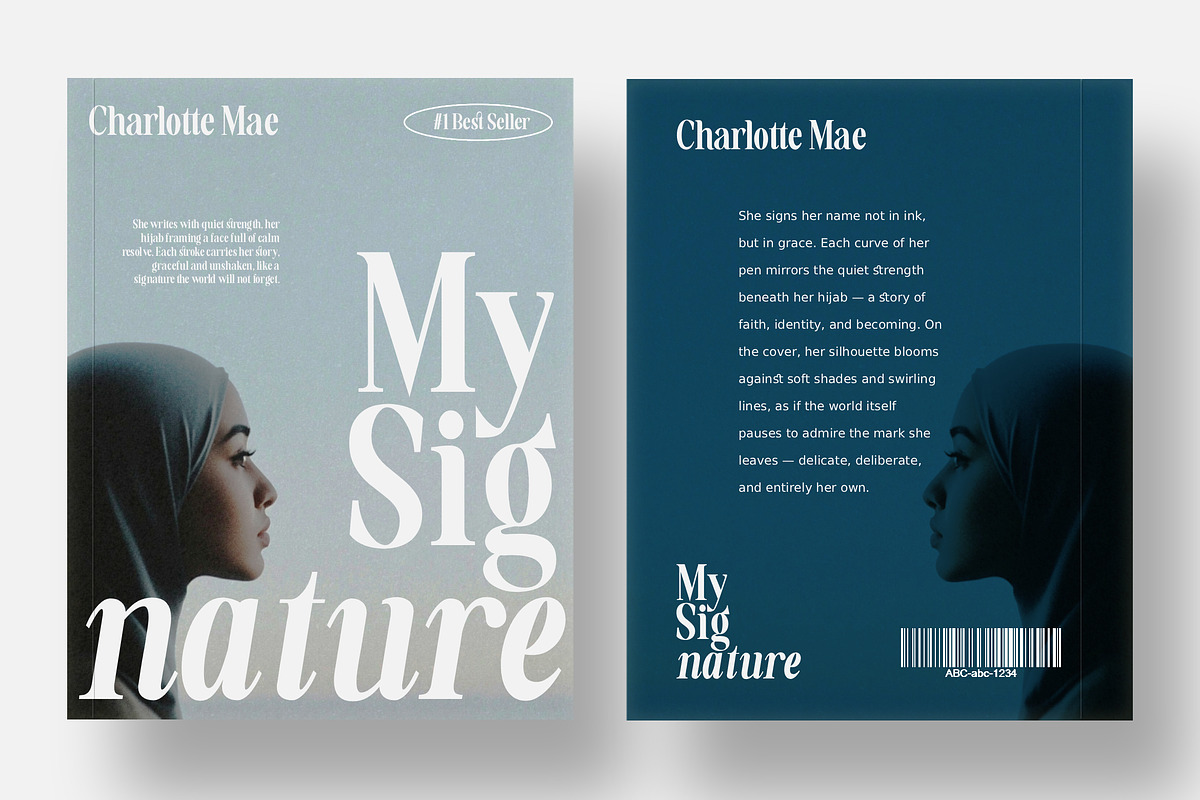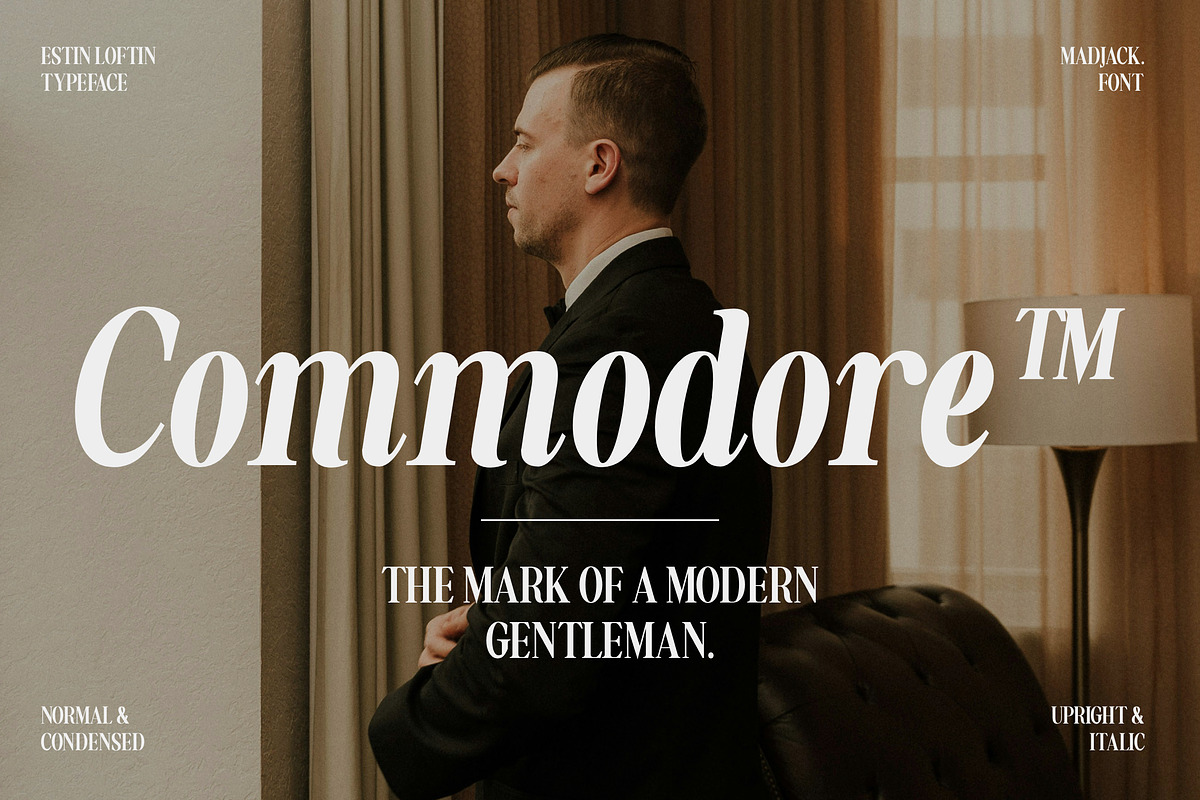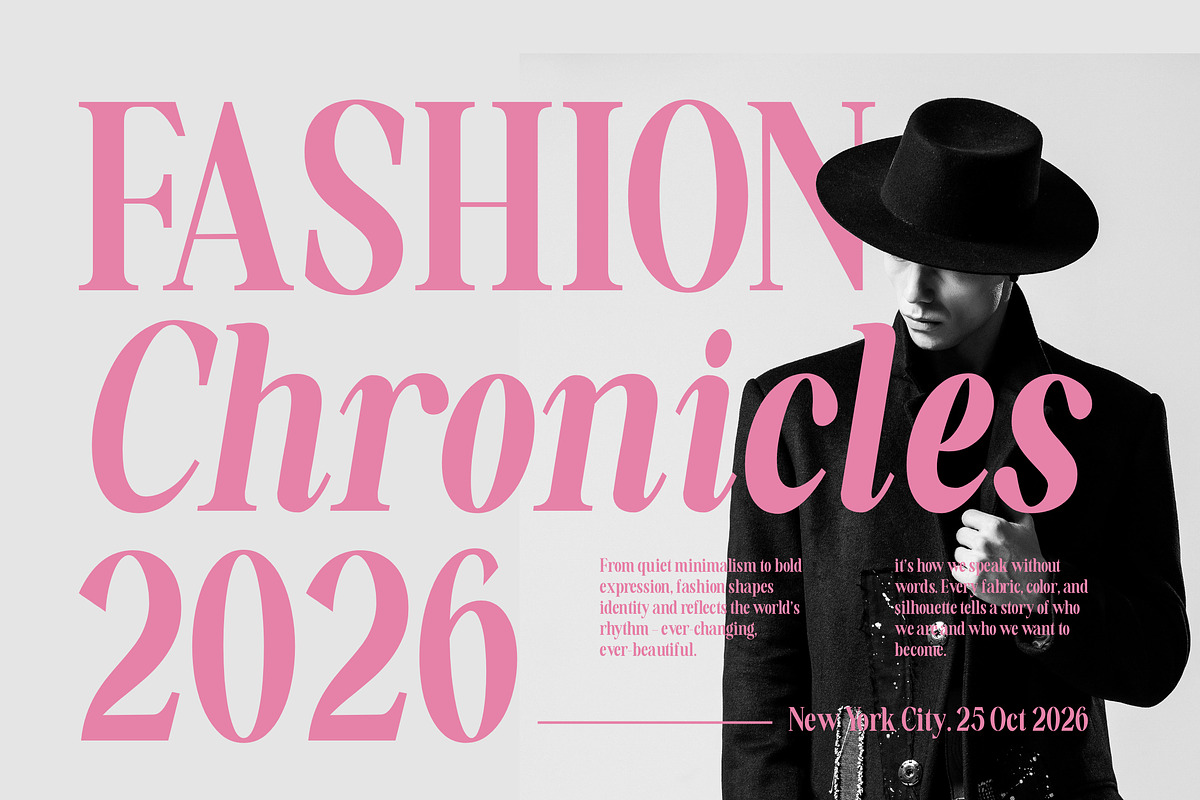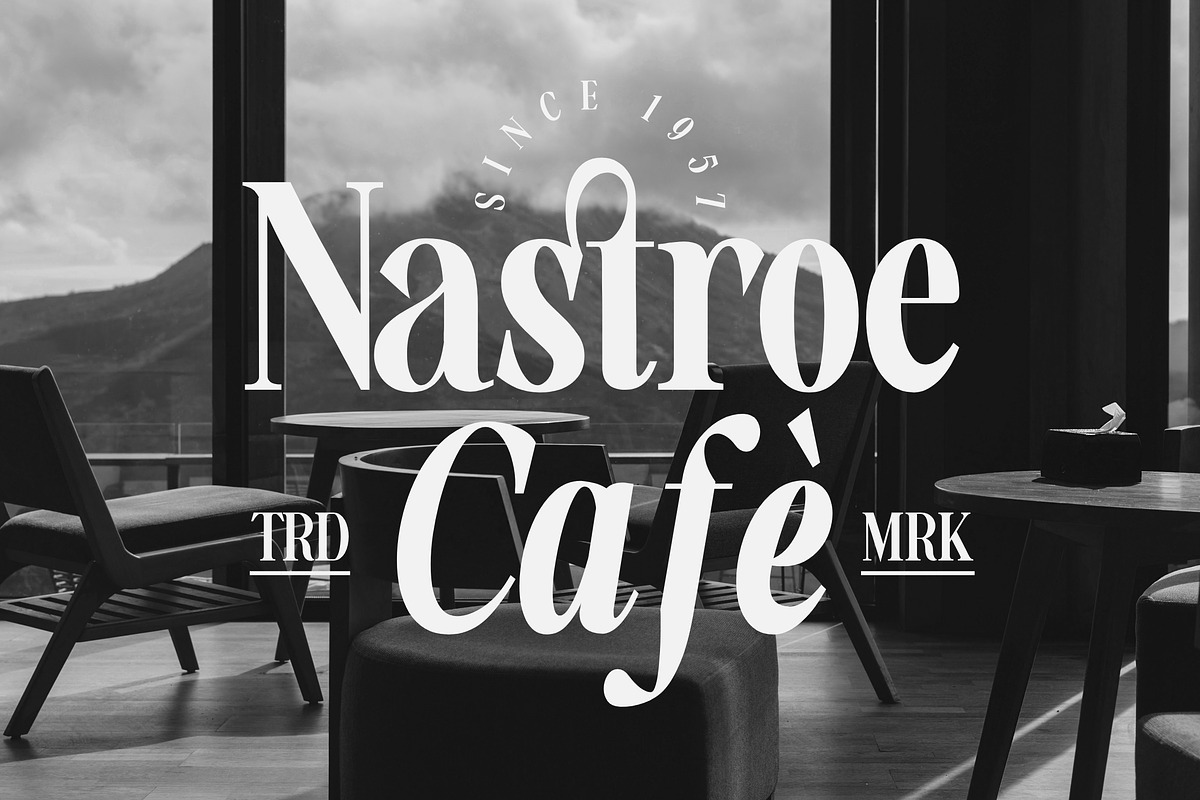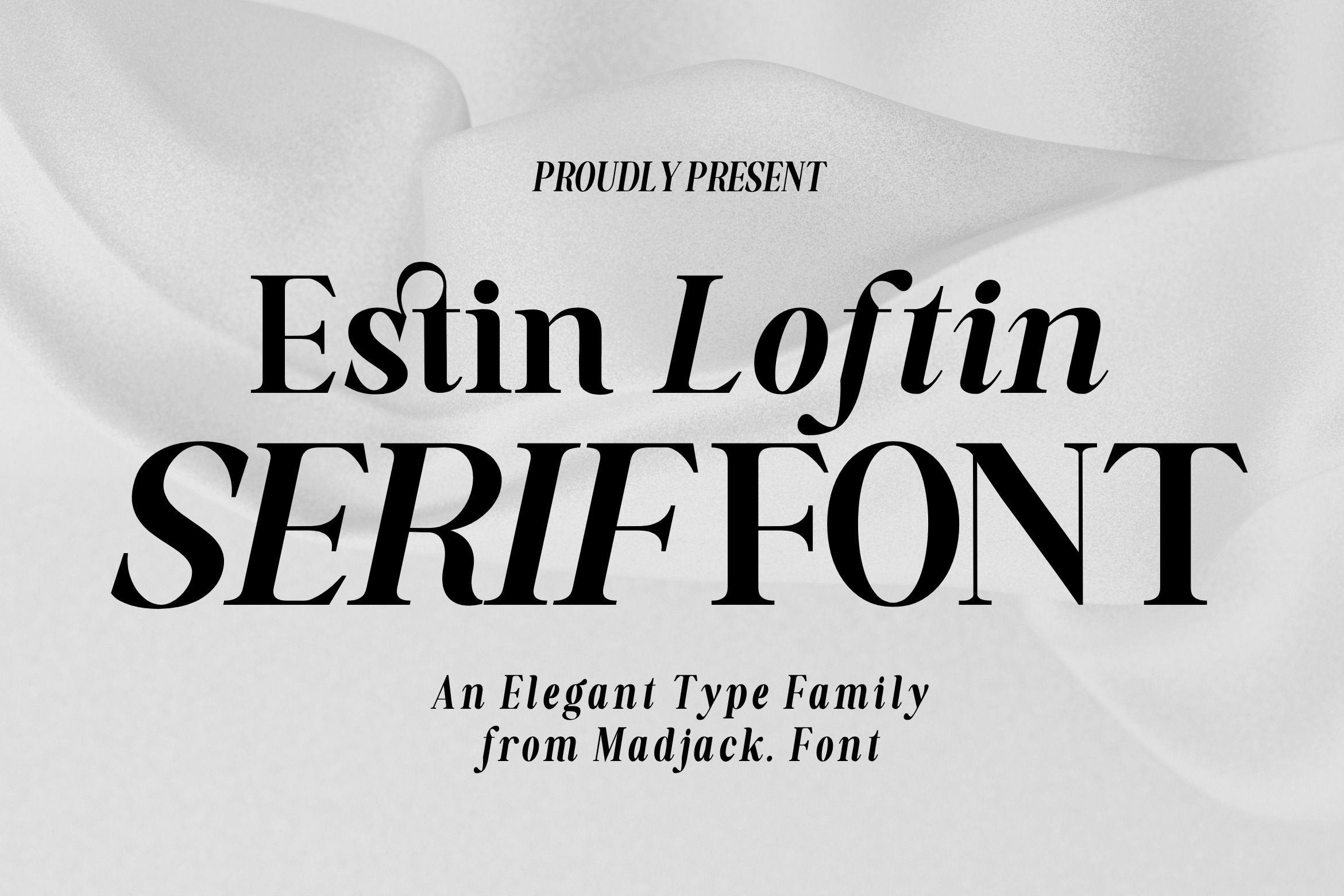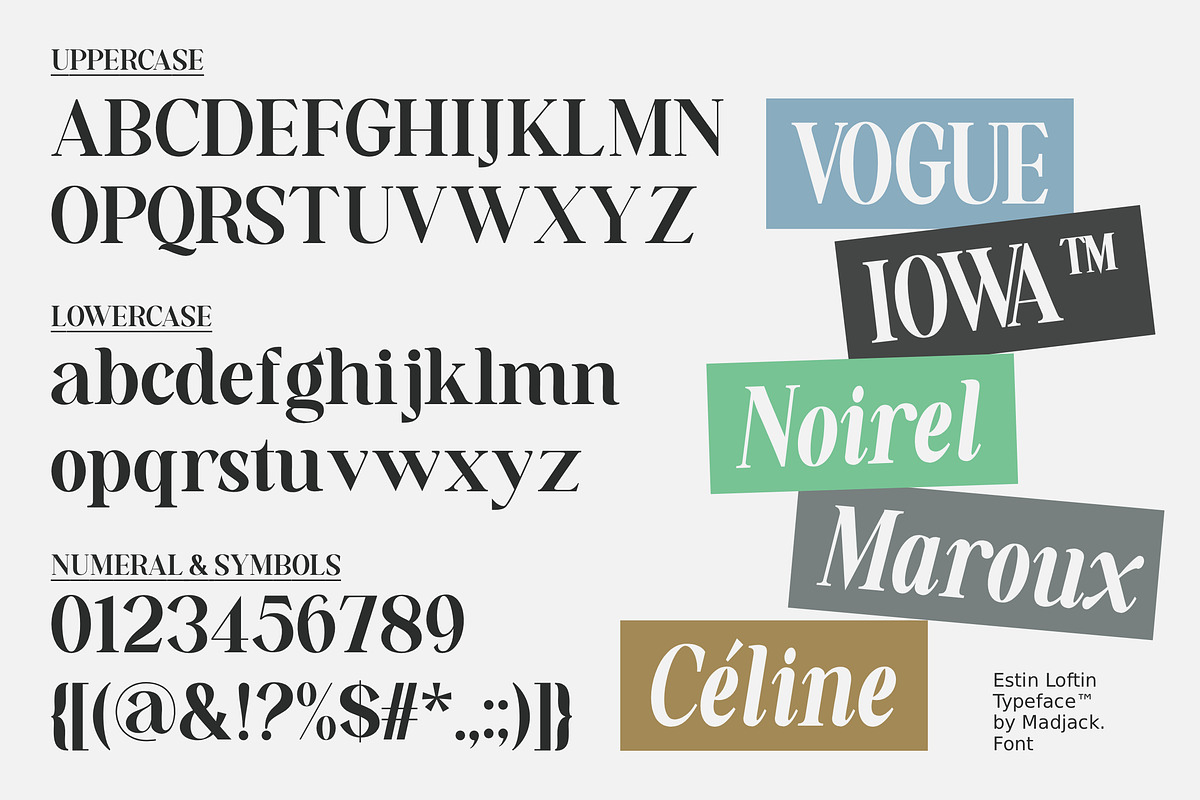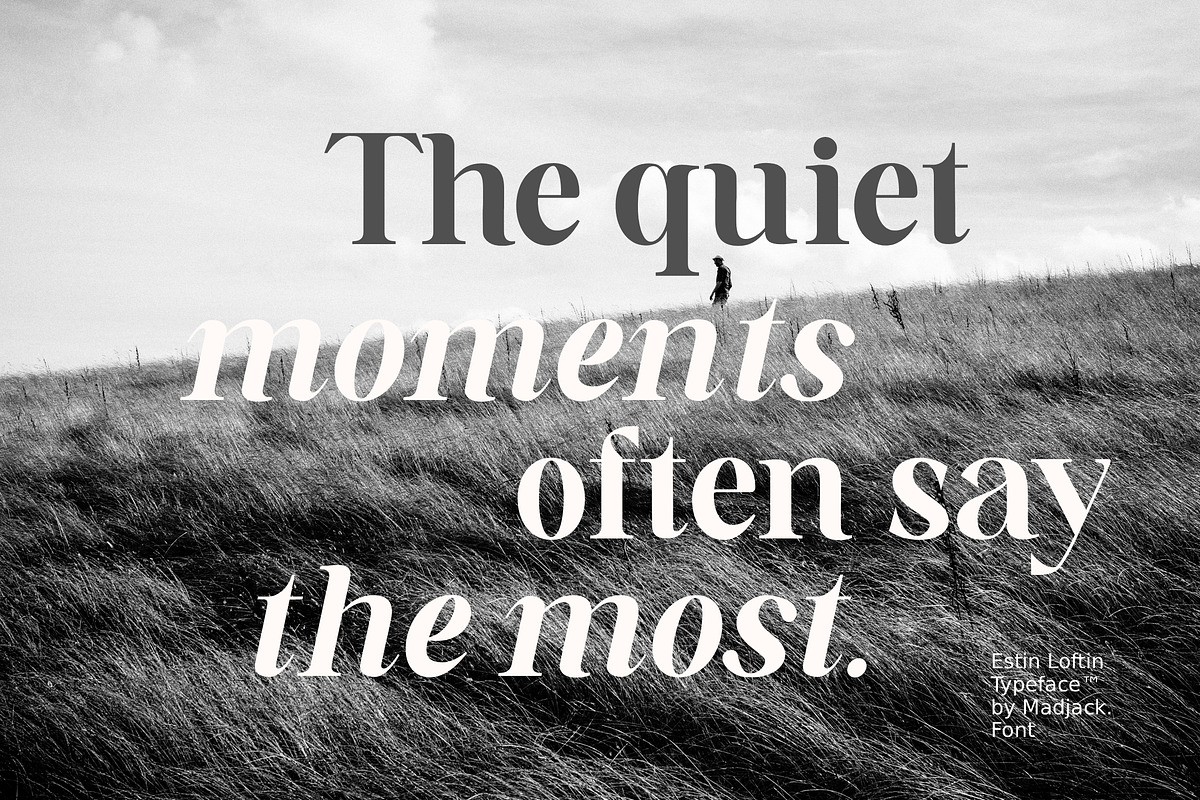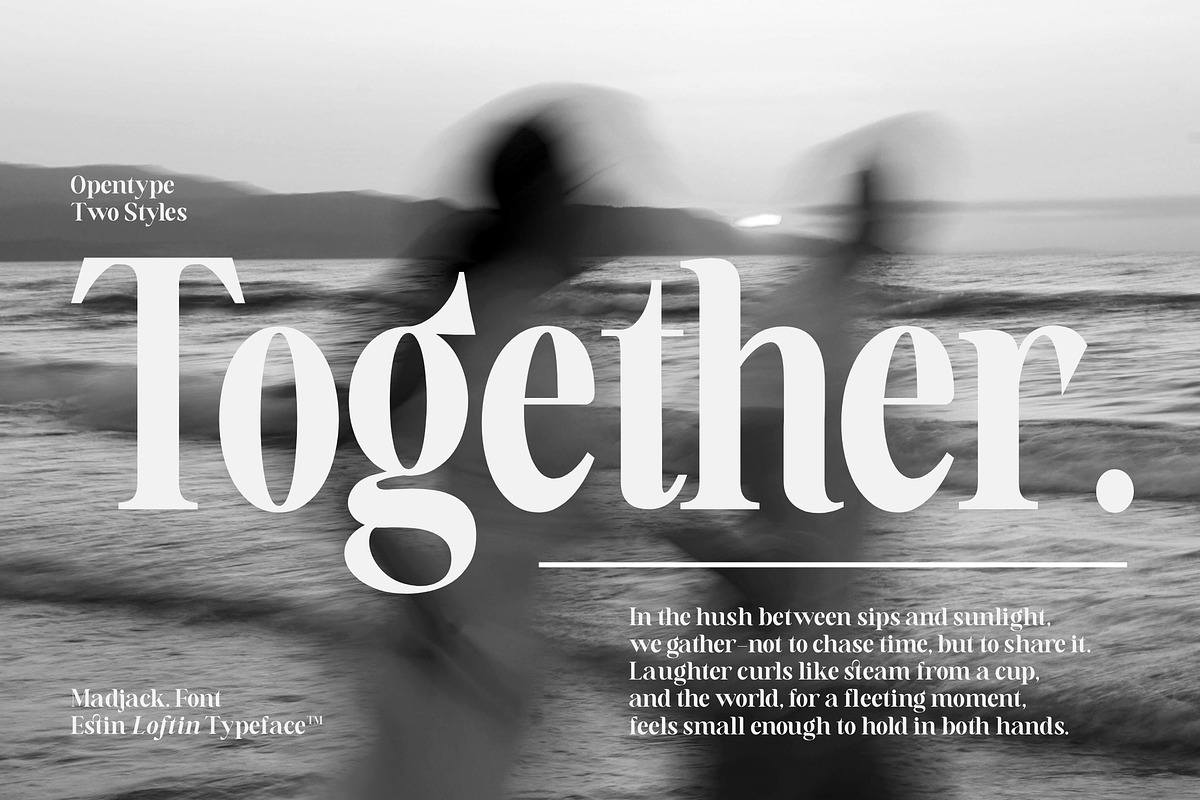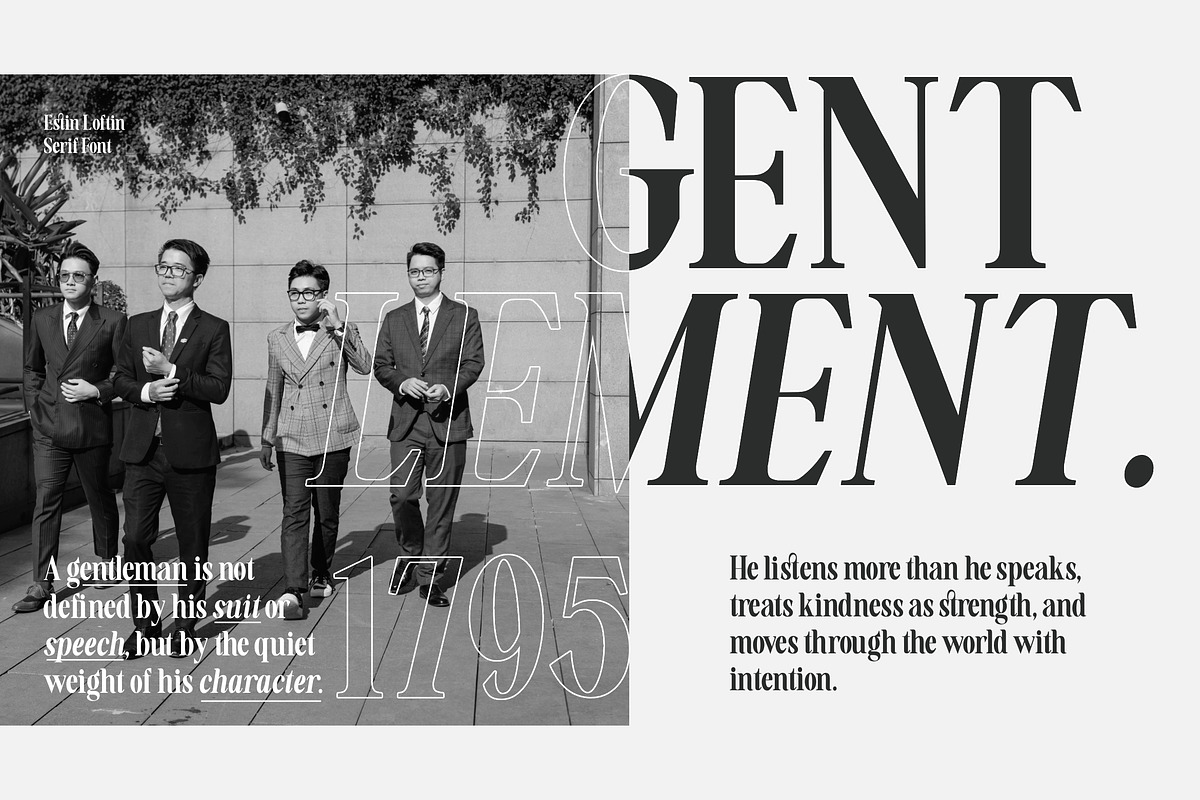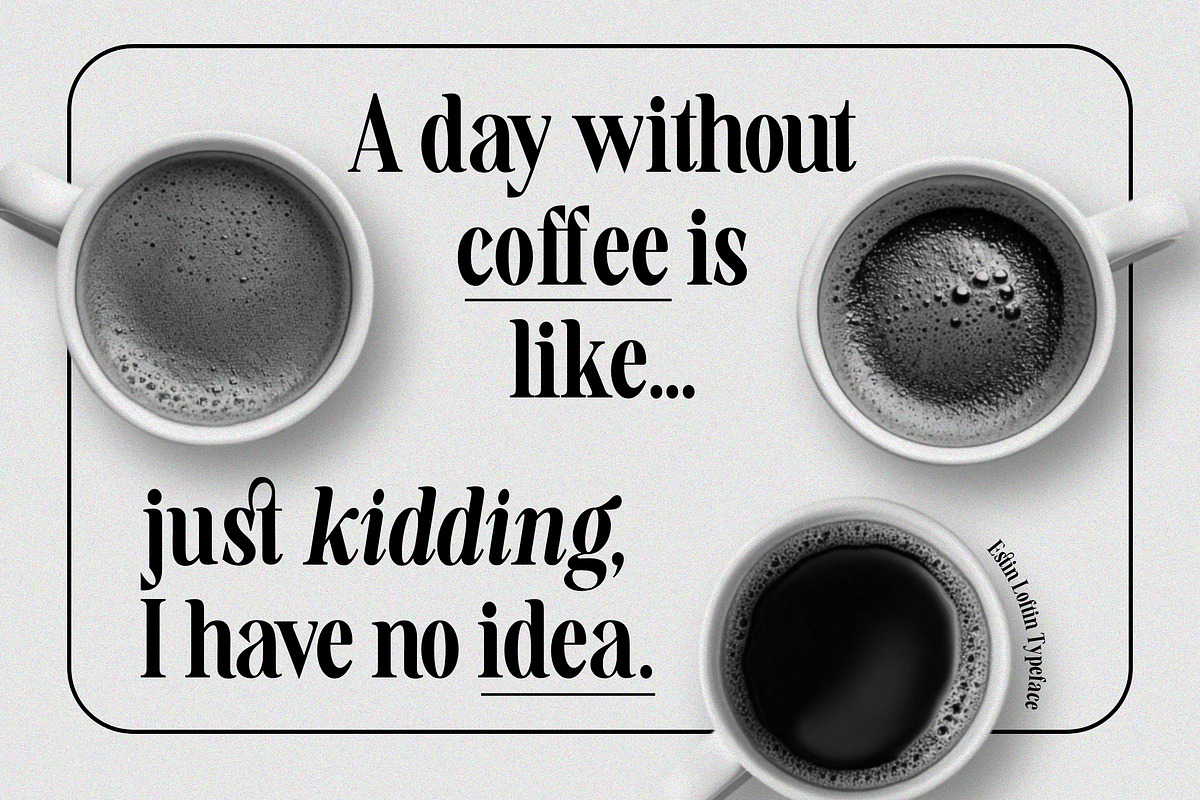
Estin Loftin Serif Font
Estin Loftin is a sophisticated serif typeface that blends classic elegance with a modern aesthetic. Designed with high-contrast strokes and subtle details, it is part of the elegant typeface family from Madjack. Font.
Key Features: Classic Serif Structure: Crisp, clean serifs provide a timeless and professional look. High Contrast Strokes: A mix of thick and thin strokes gives the font a luxurious and dramatic look. Mixed Regular & Italic: The combination of upright and italic styles (as seen in "Estin Loftin") adds flexibility and visual interest. Modern Touch: Despite its classic roots, the subtle curves and unique letterforms (like the 'f', 't', and 'n') add a contemporary flair. Elegant Presentation: Perfect for projects that require a refined and stylish tone.